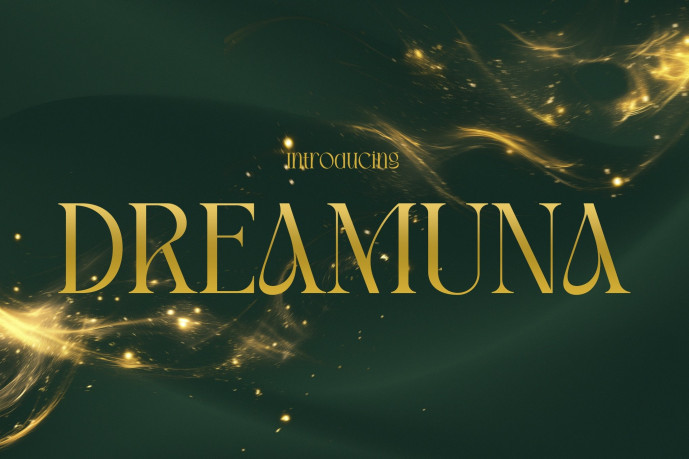
Dreamuna Font
Dreamuna Font is a sophisticated high-contrast display typeface designed for beauty branding, skincare packaging, and elegant editorial design. With graceful curves, slim proportions, and sharp serif details, this typeface creates a polished visual presence that feels modern, feminine, and expressive.
Its refined letterforms combine soft flowing curves with clean structural contrast, making it perfect for cosmetic packaging, fashion campaigns, magazine covers, social media branding, and premium product presentations. The elegant rhythm of each character helps headlines feel confident, stylish, and visually memorable. Built with multilingual support for 67 languages, Dreamuna helps brands maintain consistent and refined communication across international markets.
Dreamuna brings sophistication and clarity into every design composition. It works beautifully across branding, packaging, editorial layouts, posters, social media campaigns, and product presentations where refined typography defines the visual identity. Whether you are creating skincare packaging, cosmetic branding, fashion editorials, wellness campaigns, or boutique product visuals, this typeface helps communicate elegance, confidence, and timeless style through every headline.
Its high-contrast structure makes it ideal for designers who want clean editorial typography with graceful personality and strong visual appeal.